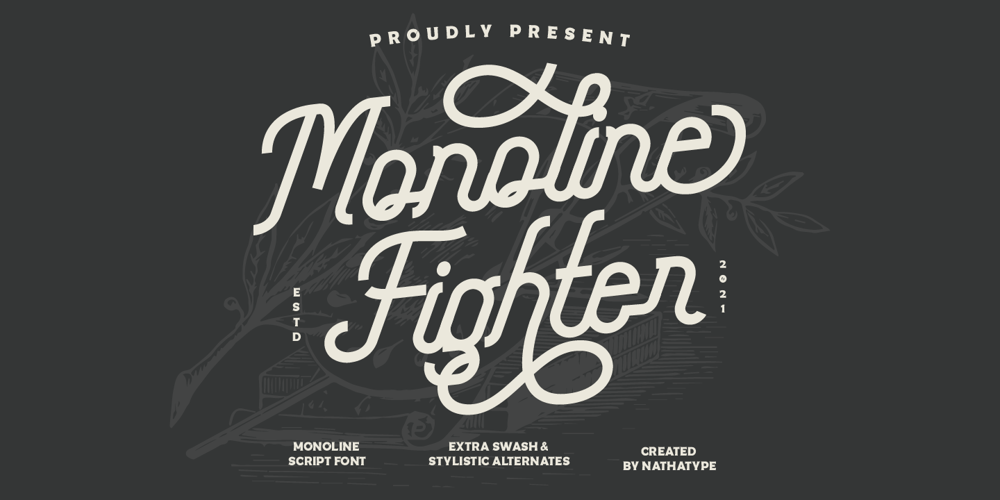
Monoline Fighter Font Family was designed by Donis Miftahudin and published by Nathatype. Monoline Fighter contains 1 styles and family package options. Are you looking for a way to enhance your copy? Looking for a way to stand out from your competition? Maybe you are missing that “something”. Monoline Fighter-A Script FontMonoline Fighter was fully thought out to easily meld inside your designs. These fonts make a good foundation of what you want it to be! Discover the beauty in your own imagination while this font gives you a quick kickstart to what it can be. Wait no more, this beautiful font can be yours right now! This custom made font was specifically designed to fit whatever you need! Perfect for social media posts and ads, printed quotes, t-shirt designs, packaging, or even as a modern text overlay to any background image. Monoline Fighter includes Multilingual Options to make your branding globally acceptableFeatures: Stylistic Sets Swashes Bonus Ornament PUA Encoded Numerals and Punctuation Thank you for downloading premium fonts from Nathatype